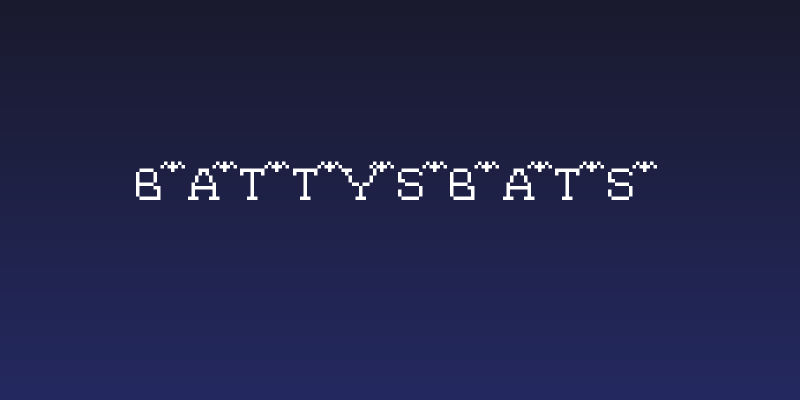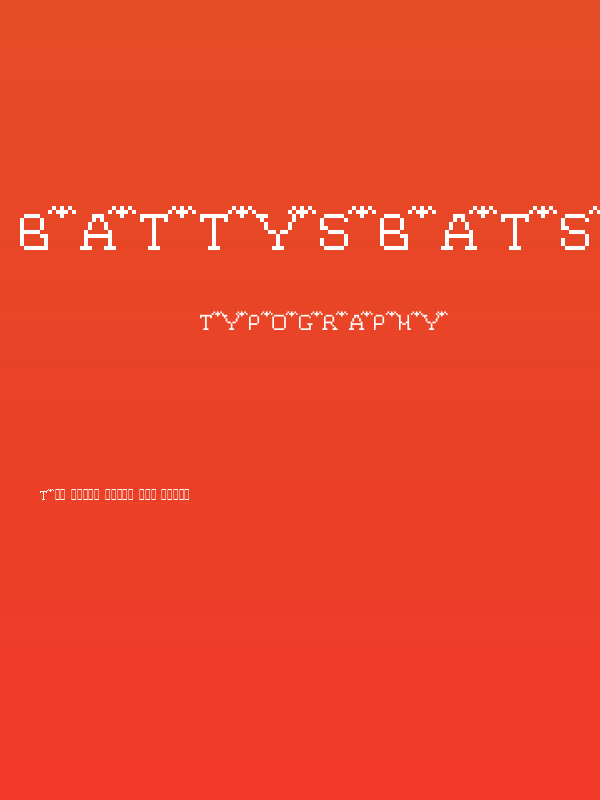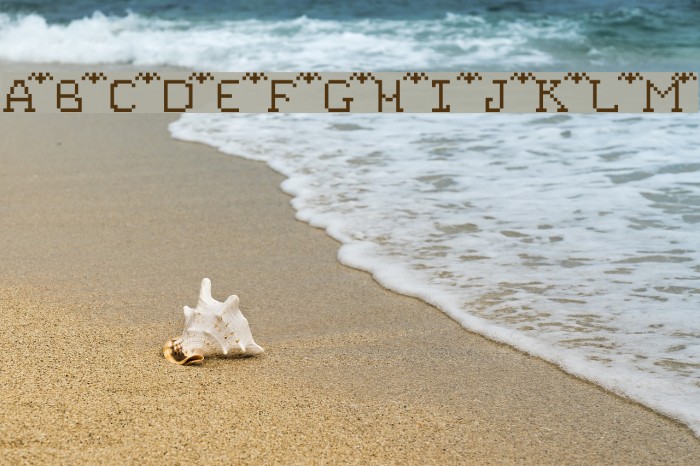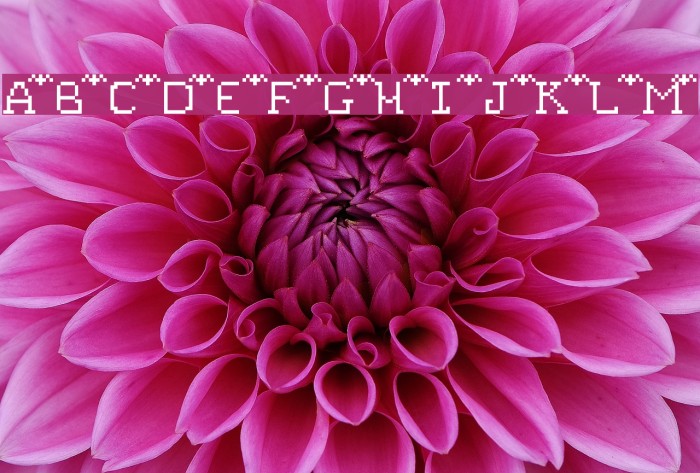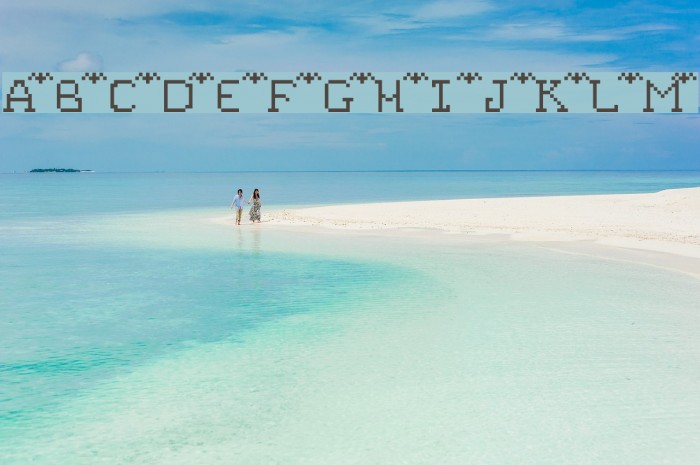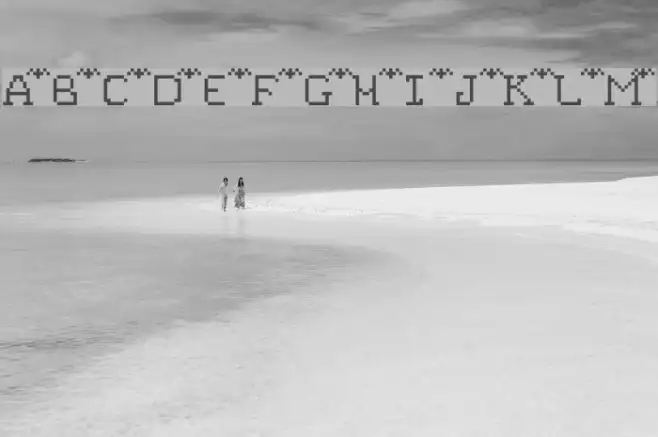
BattysBats Font
BattysBats Description
This decorative font features a playful and whimsical design, incorporating bat-like elements into each character. The uppercase letters are adorned with bat wings, giving them a unique and thematic appearance. The font is highly stylized, making it ideal for Halloween-themed projects or any design that requires a spooky or gothic touch. The characters are evenly spaced, ensuring readability despite their intricate design. The font's distinct style is both eye-catching and memorable, perfect for capturing attention in creative projects.
| Use Case | Headlines, Logos, Themed Invitations |
| Proposed Projects | This font is perfect for Halloween invitations, themed party decorations, spooky posters, and creative branding projects that require a gothic or eerie touch. |